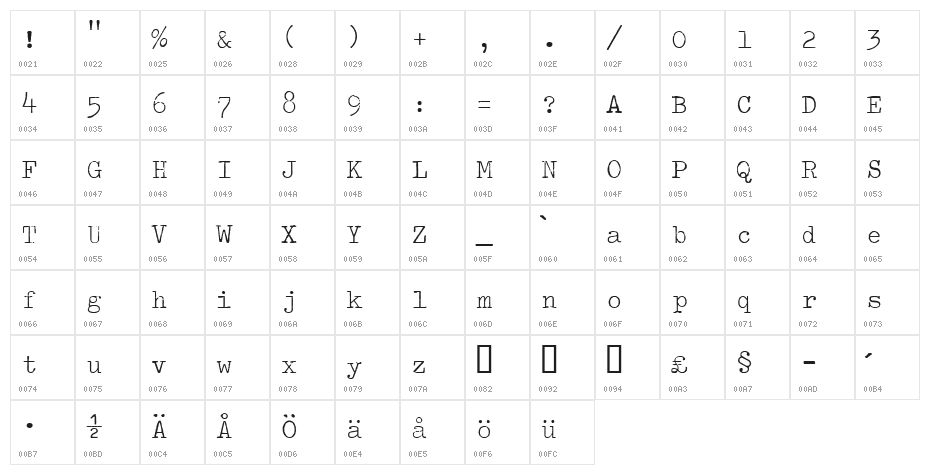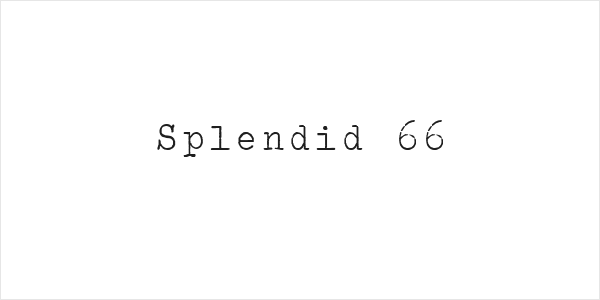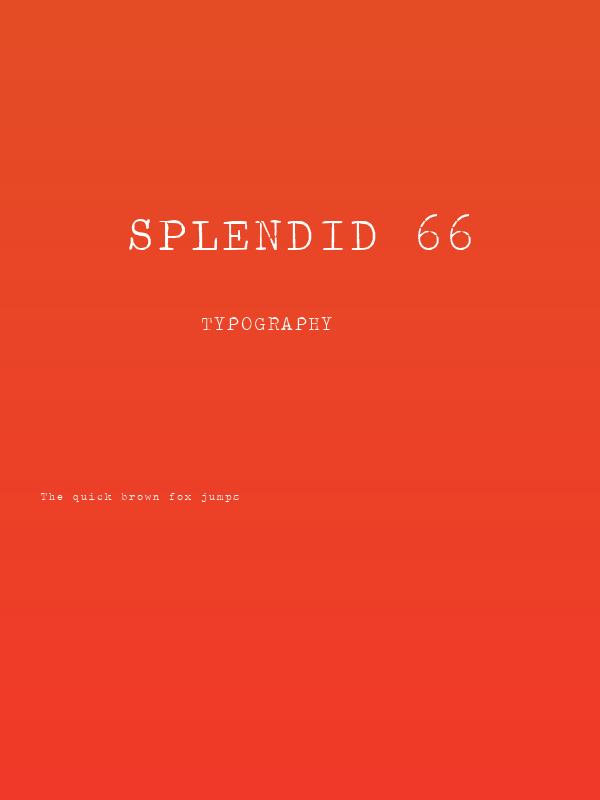
Splendid 66 Font
Splendid 66 Description
This typeface features a distinct, vintage typewriter style with a monospaced design, characterized by uniform spacing between characters. The letters exhibit a slightly distressed appearance, adding a touch of nostalgia and authenticity. The uppercase and lowercase letters maintain a consistent height, while the numerals and special characters follow the same monospaced pattern. The font's rough edges and uneven strokes contribute to its retro charm, making it ideal for projects that require a classic, typewriter aesthetic.
| Use Case | Headlines, Logos, Creative writing |
| Proposed Projects | Ideal for retro-themed designs, typewriter-style documents, vintage posters, and creative writing projects. |